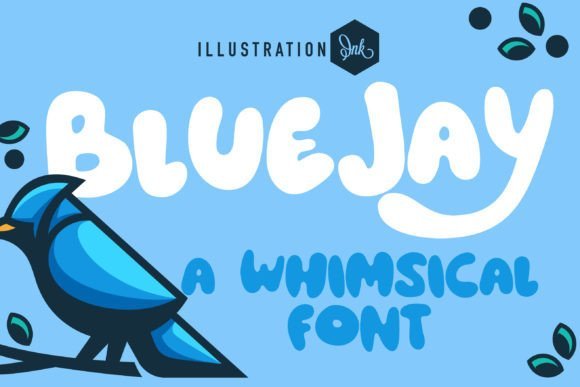
Introduction to Bluejay Font
Bluejay is a friendly and chubby font.
Its letters are round and smooth, like little bubbles It’s easy to read and looks cheerful on any project.
Bluejay Font offers exceptional quality and versatility, making it a valuable addition to your design toolkit. Whether you’re creating for personal projects or commercial use, Bluejay Font delivers professional results.